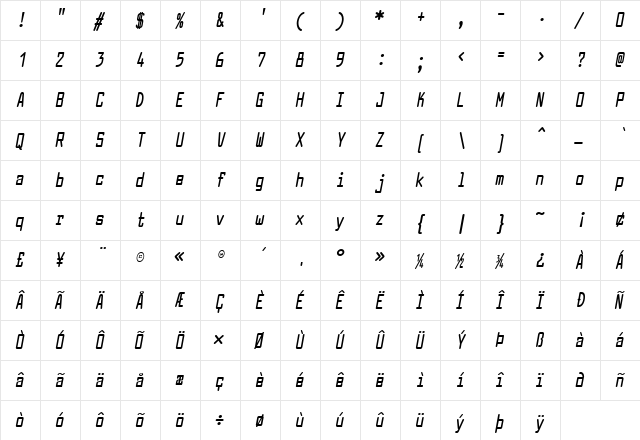
Larabiefont Compressed Bold Italic
Design Context for Larabiefont Compressed Typeface
Larabiefont Compressed is a composed and adaptable typeface that performs quietly and consistently across a wide range of design contexts. The slanted form adds forward momentum and visual energy. The heavy weight commands attention and anchors typographic hierarchies.